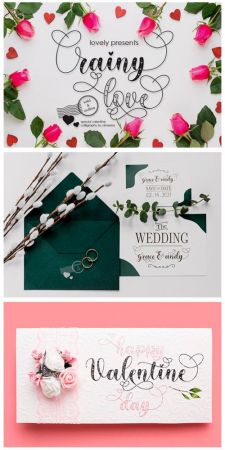
Rainy Love is a beautiful handwritten font with a romantic theme. Fall in love with its incredibly versatile style and use it to create gorgeous wedding invitations, beautiful stationary art, eye-catching social media posts, and much more!